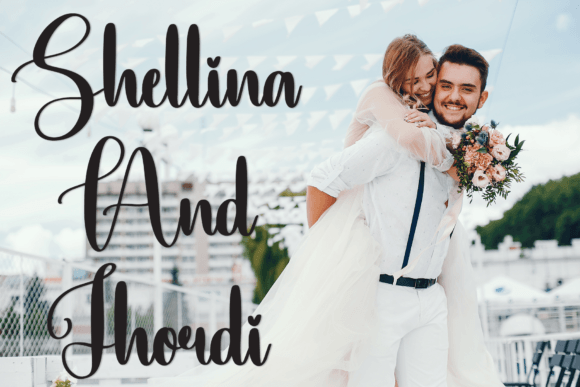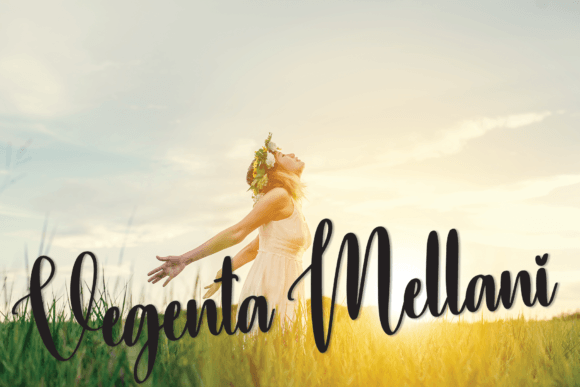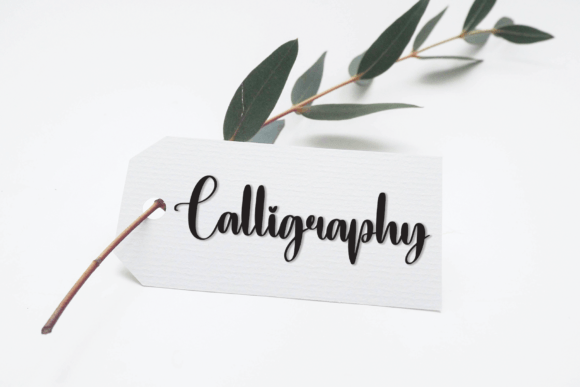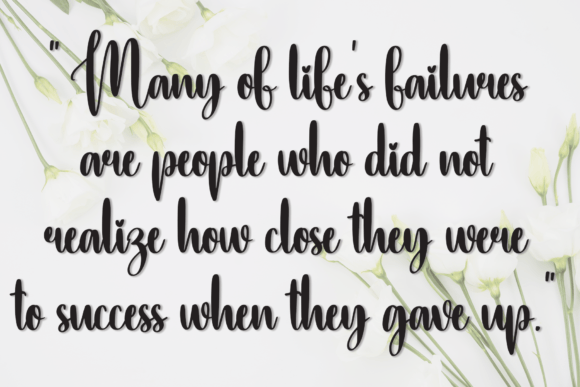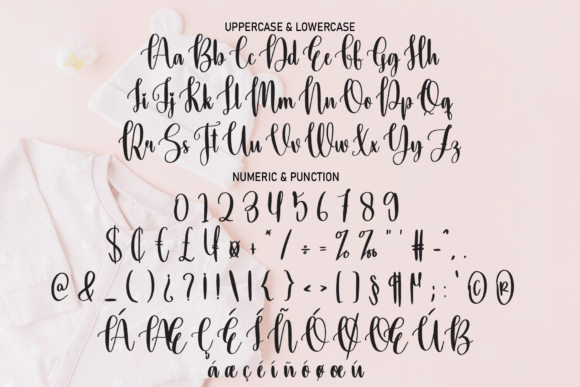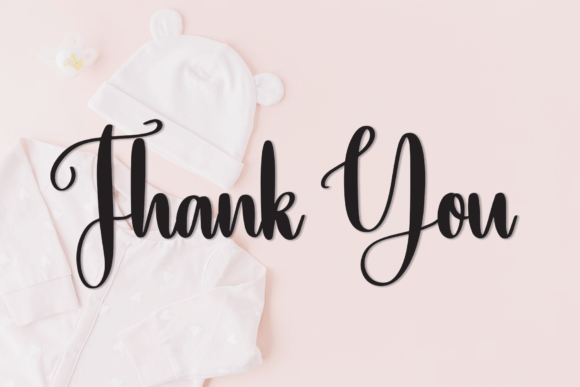
Introducing Anfant Font: The Sweet and Friendly Handwritten Font for Your Creative Projects
Are you a designer, crafter, or DIY enthusiast looking for a font that can add a personal touch to your creative projects? Look no further than Anfant Font, a sweet and friendly handwritten font that is perfect for a wide range of designs. With its natural and unique style, Anfant Font is incredibly versatile and can be used in various contexts, from crafting and DIY projects to digital designs and marketing materials.
The Unique Style of Anfant Font
Anfant Font boasts a distinctive handwritten style that is both sweet and friendly. Its natural, fluid lines and curves give it a unique and charming personality that is sure to capture the attention of your audience. The font’s style is reminiscent of handwritten notes and letters, making it perfect for designs that require a personal touch.
One of the standout features of Anfant Font is its ability to evoke emotions and create a connection with the reader. The font’s friendly and approachable style makes it ideal for designs that aim to build trust, rapport, and warmth with the audience. Whether you’re creating a logo, branding materials, or social media graphics, Anfant Font is sure to help you establish a strong emotional connection with your audience.
The Versatility of Anfant Font
The only limit to using Anfant Font is your imagination! This incredibly versatile font can be used in a wide range of designs, from:
- Crafting and DIY projects, such as handmade cards, gift tags, and scrapbooking
- Digital designs, including social media graphics, blog posts, and website headers
- Marketing materials, such as brochures, flyers, and business cards
- Stationery and paper products, including notebooks, journals, and letterheads
Anfant Font’s versatility is due to its unique style, which is both elegant and playful. The font can be used in large or small sizes, making it perfect for headlines, body text, and captions.
Why Choose Anfant Font?
- Unique style: Anfant Font boasts a distinctive handwritten style that sets it apart from other fonts
- Versatility: The font can be used in a wide range of designs and contexts
- Emotional connection: Anfant Font’s friendly and approachable style helps create a strong emotional connection with the reader
- Ease of use: The font is easy to read and use, making it perfect for designers and crafters of all levels
Tips for Using Anfant Font
- Pair with other fonts: Anfant Font pairs well with other fonts, including serif and sans-serif fonts
- Experiment with colors: The font looks great in a range of colors, from bright and bold to pastel and muted
- Use in combination with images: Anfant Font can be used in combination with images and graphics to create visually appealing designs